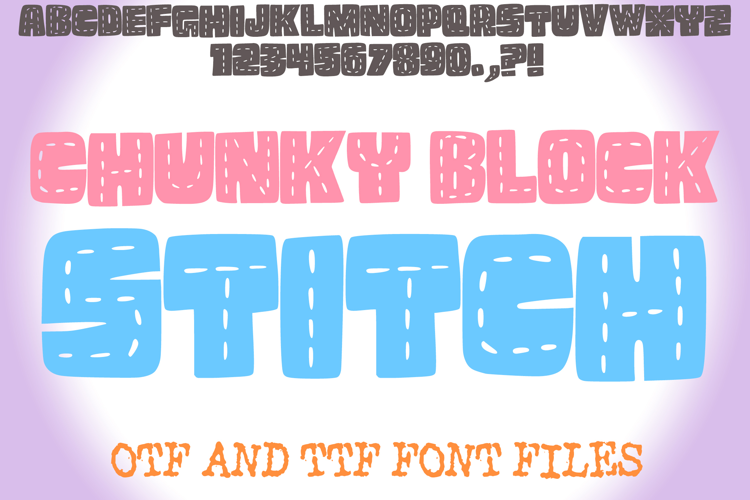
Chunky Stitch Block Comic Lettering ABC Font Typography Text
Introducing the Chunky Block Stitch Font – a bold, playful, and handcrafted typeface designed to bring a fun stitched look to your creative projects. Inspired by sewing and embroidery, this font mimics the texture of chunky stitched thread, making it perfect for designs that need a cozy, crafty, or handmade feel.
Ideal for embroidery-inspired crafts, sewing projects, DIY printables, quilting graphics, handmade branding, Cricut and Silhouette projects, posters, invitations, apparel design, scrapbooking, and digital designs, this font is a must-have for crafters and designers alike.
Whether you’re working on sewing-themed graphics, embroidery patterns, or fun stitched lettering, the Chunky Block Stitch Font gives your text a warm, textured, and eye-catching appearance. Add a handmade touch to your designs today!